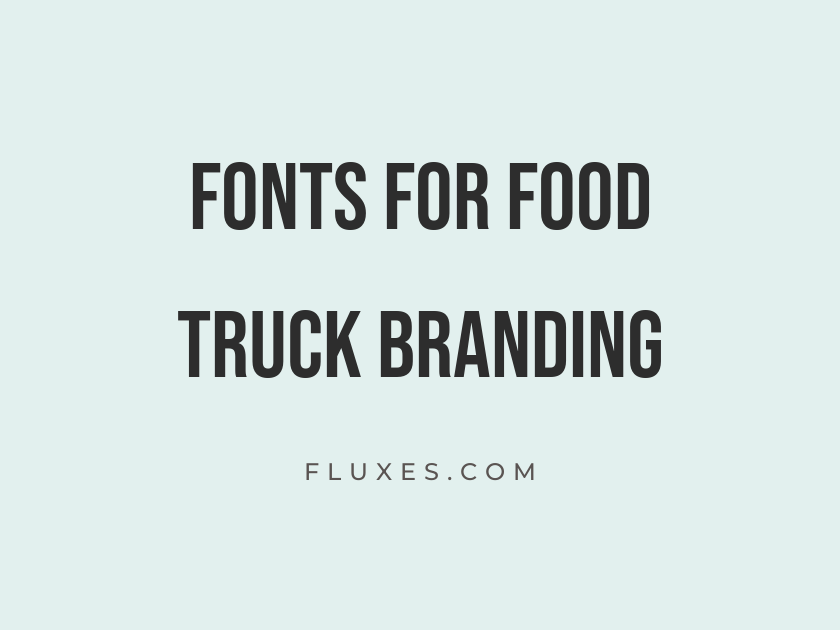
62 Best Fonts for Food Truck Branding
Food truck branding lives or dies on personality you can read from across a parking lot. A great truck needs a bold, high-contrast name on the side panel, a hand-painted feel on the specials board, and a friendly script for the tagline underneath, often all within the same logo system. Because most trucks operate on tight startup budgets, free fonts from Google Fonts have become the backbone of this whole category, powering everything from taco trucks to artisan coffee carts. Whatever your cuisine or vibe, from smoky BBQ to bright citrus poke bowls, there is a genuinely well-made free option below to build a menu board, a decal, or a full identity around.
1. Bebas Neue
Bebas Neue is the default workhorse of street food branding, and for good reason. Its tall, all-caps condensed letterforms pack a lot of name into a narrow side panel, which is exactly the constraint most trucks are designing around.
It has zero lowercase personality quirks to worry about since it only ships in caps, so it reads as clean and confident rather than gimmicky. Pair it with a loose script for the tagline and you have a logo system in minutes.
2. Anton
Anton is Bebas Neue’s heavier cousin, built for maximum punch at a distance. Where Bebas stays lean, Anton fills its counters almost completely, making it ideal for one or two word truck names that need to dominate a hand-painted plywood sign.
3. Oswald
Oswald is the reliable, versatile choice when a truck needs a condensed sans that still works well set small, on a menu board, receipt, or Instagram bio. It reads as tidy and modern rather than shouty, which makes it a smart pairing partner for louder display fonts elsewhere in the identity.
4. Fjalla One
Fjalla One has a slightly narrower, more architectural feel than Oswald, with sturdy strokes that hold up well in menu listings and price lists. It is an unglamorous but dependable choice for the practical text on a truck, hours, prices, allergen notes, the stuff that has to stay legible.
5. Passion One
Passion One brings rounded, chunky caps that feel friendly and a little bit retro, like something stenciled on a 1970s diner awning. It works nicely as a secondary display face for badges and stamps.
6. Ranchers
Ranchers
Ranchers is a newer bold condensed display face with a distinct hand-cut, slightly wobbly edge to its letters, giving it more character than the average heavy-duty sans. It suits rustic, BBQ, and comfort-food trucks that want boldness without looking corporate.
7. Bungee
Bungee was designed with urban signage in mind, and it shows: thick, uniform strokes and a slightly playful geometry that reads as youthful street culture rather than fine dining. It is a strong choice for food trucks aiming at a skate-park or festival crowd.
8. Bungee Inline
This inline variant keeps all of Bungee’s chunky urban attitude but hollows out the strokes, which gives it a stickered, layered look on decals and truck wraps. Use it sparingly as an accent rather than for body copy, since the open counters get busy at small sizes.
9. Bungee Shade
Bungee Shade adds a dimensional drop shadow baked right into the letterforms, giving flat vinyl graphics an illusion of depth without needing actual layered artwork. It is a fun way to make a truck name pop off a white background.
10. Righteous
Righteous has a rounded, retro-futuristic geometry that splits the difference between a logo font and a display font. It suits trucks with a playful, slightly nostalgic brand voice, think diner-meets-arcade rather than rustic farmhouse.
11. Titan One
Titan One is thick, bouncy, and cartoonish in the best way, the kind of face that looks great on a mascot logo or a big number on a value combo meal. It is not a subtle font, and it should not be asked to be one.
12. Luckiest Guy
Luckiest Guy borrows its energy from vintage comic lettering, all rounded, confident, slightly irregular caps. It gives a logo an approachable, fun-loving personality that works particularly well for burger, hot dog, and dessert trucks aimed at families.
13. Bangers
Bangers channels old comic book sound effects, POW and BAM energy translated into a food truck name. It pairs naturally with anything sausage, hot dog, or fair-food related, less naturally with an upscale coffee cart.
14. Boogaloo
Boogaloo has a soft, rounded bounce to it that reads as friendly rather than aggressive, a nice middle ground between the heavier cartoon faces and something more grown up. It is a solid choice for dessert and ice cream trucks.
Stick to one script and one display face per brand. Layering three or four decorative fonts together usually reads as cluttered rather than characterful.
With this many free, genuinely well-crafted options on Google Fonts, there is no reason a food truck’s typography should feel like an afterthought. Pick one bold voice for the name, one steady voice for the details, and let the rest of the design build around that contrast.